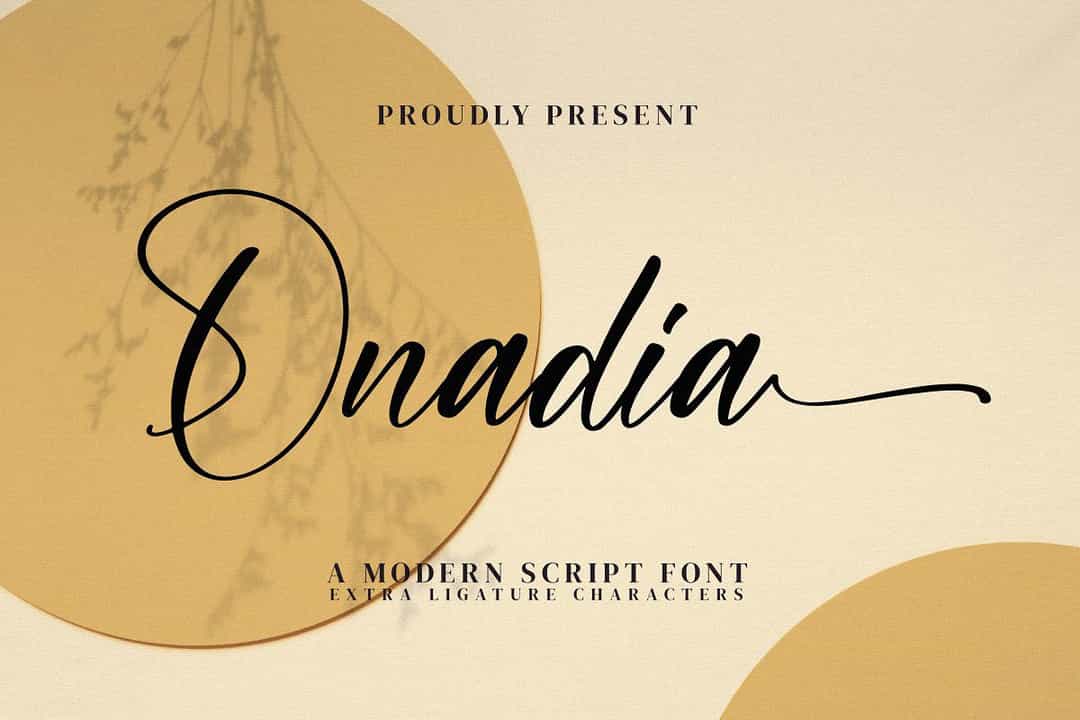
Onadia is a beautiful script calligraphy font with modern styling and traditional roots in classic calligraphy. Not too thin nor heavy, yet well balanced and diverse; Onadia was created to enhance your designs’ visual aesthetics.